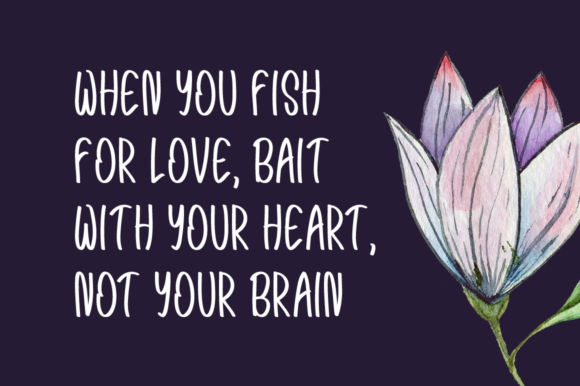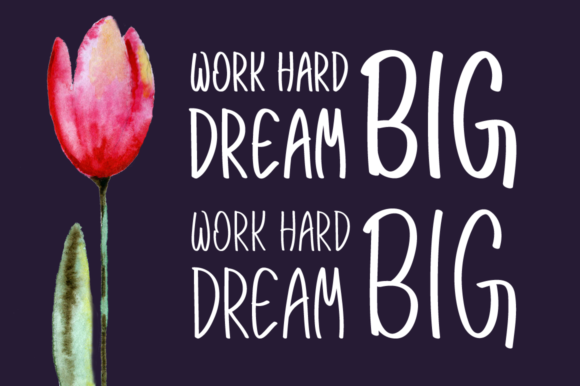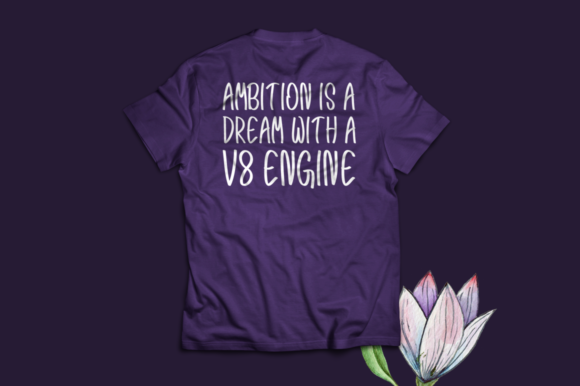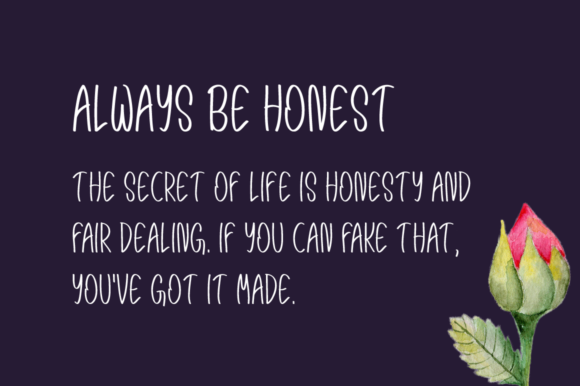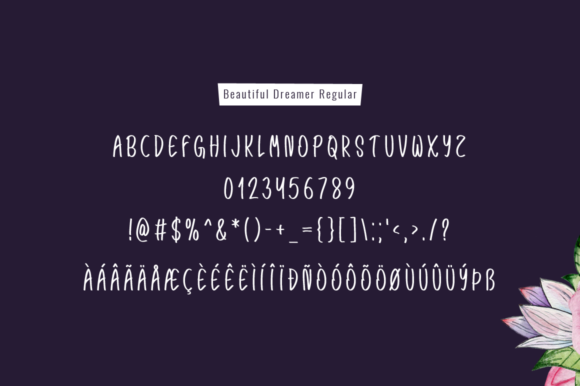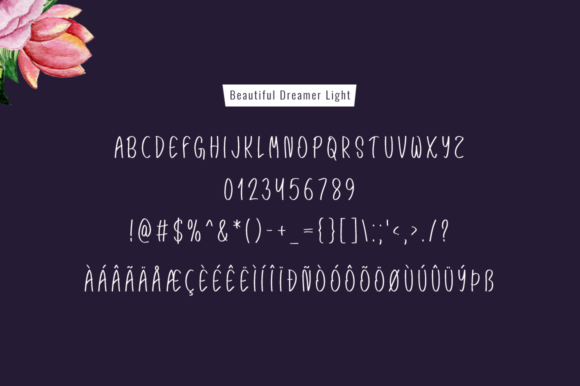
Beautiful Dreamer Font
About Beautiful Dreamer Font
The Beautiful Dreamer is a brand new modern handwritten font. It comes in 2 styles and is perfect for logos, t-shirts, papers, print designs, website headers, photo frames, flyers, music covers, posters, image sliders and much more.